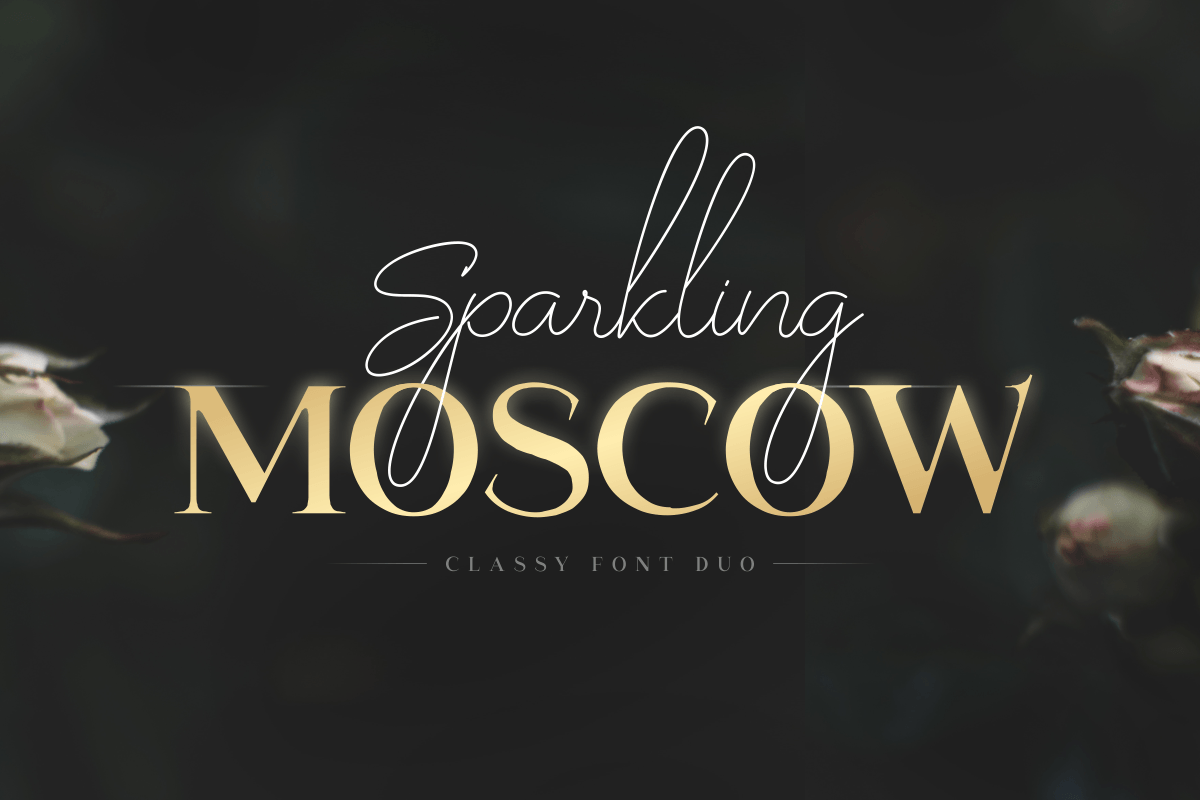
Sparkling Moscow
-Classy Font Duo
Sparkling Moscow - Classy Font Duo
Sparkling Moscow is a classy font duo designed to create elegant and memorable visual identities. Combining complementary type styles, this font duo gives designers flexibility to create sophisticated branding and creative typography compositions.
Perfect for logo design, luxury branding, signage, wedding invitations, packaging, social media graphics, and editorial projects. Sparkling Moscow helps create a premium and stylish appearance for brands that need a distinctive visual character.
With carefully crafted letterforms and harmonious font pairing, Sparkling Moscow makes it easy to build beautiful typography combinations for modern creative projects.
- Two complementary font styles
- Uppercase and lowercase characters
- Numbers and punctuation